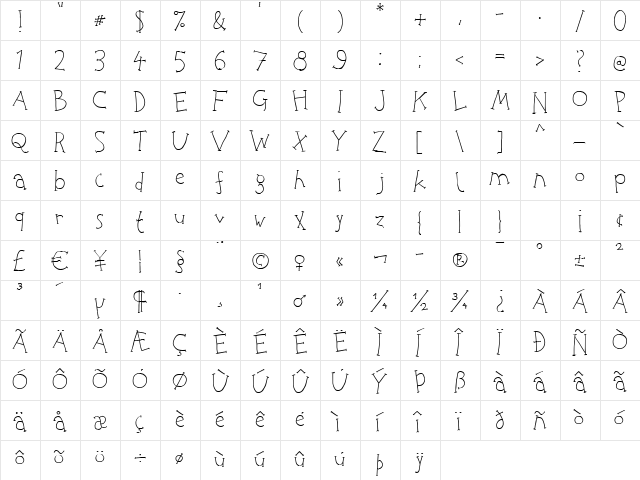
Rice Cracker Regular
Design Context for Rice Cracker Typeface
Rice Cracker is a composed and adaptable typeface that performs quietly and consistently across a wide range of design contexts.